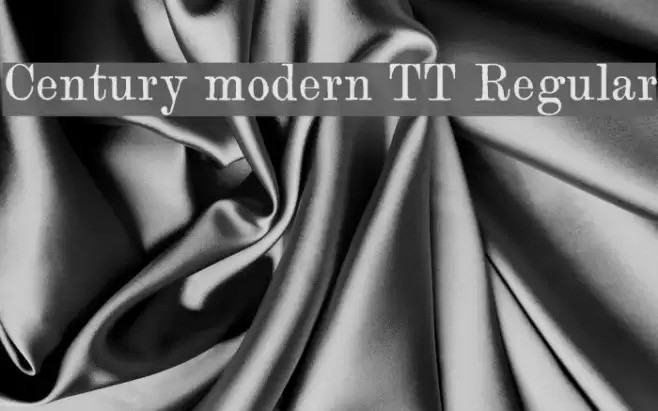
Century Modern Tt Typeface
Designer: Ni**la Z*t
Century Modern Tt Font is a refined serif typeface with a modern touch. Featuring high contrast between thick and thin strokes and elegant, straight serifs, this Regular weight font combines readability with a professional, classic appearance. Part of the TrueType (TT) family, Century Modern is ideal for print materials, books, and office documents, delivering a timeless and polished look that balances tradition with contemporary style.